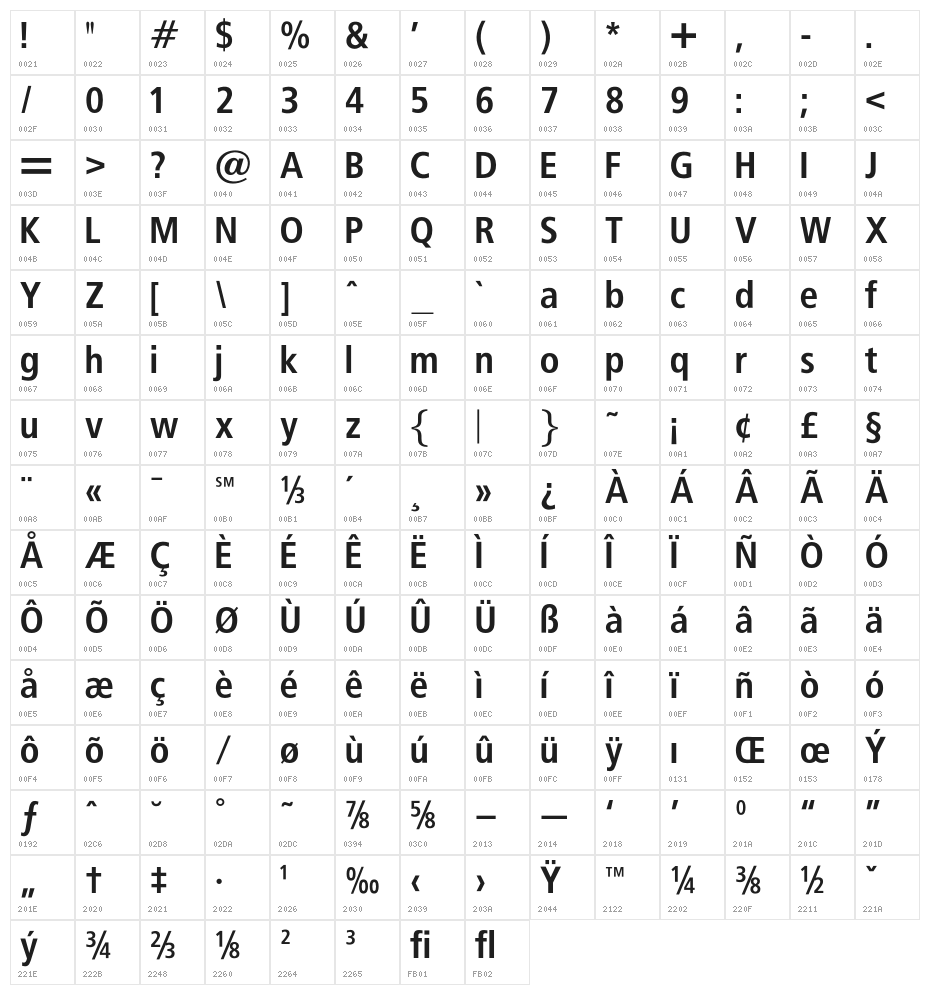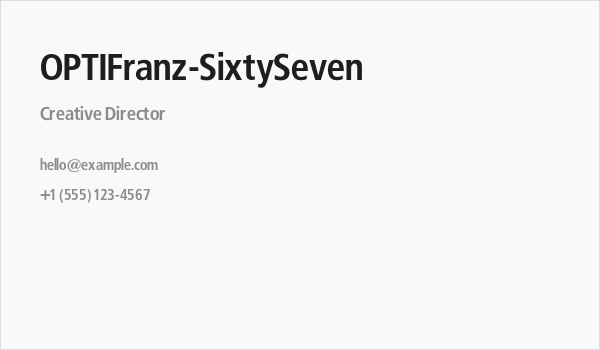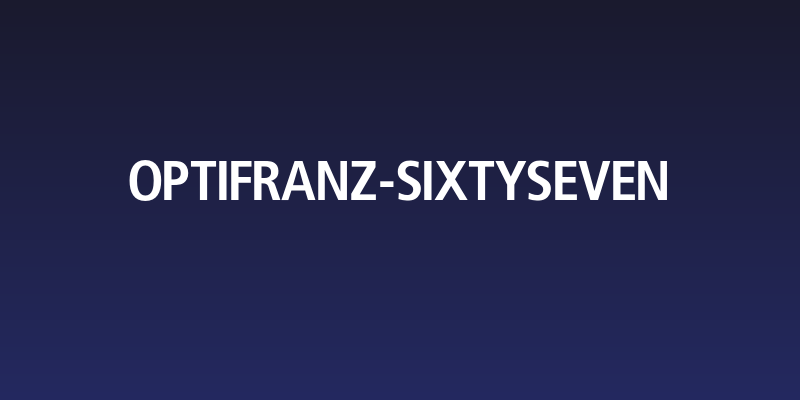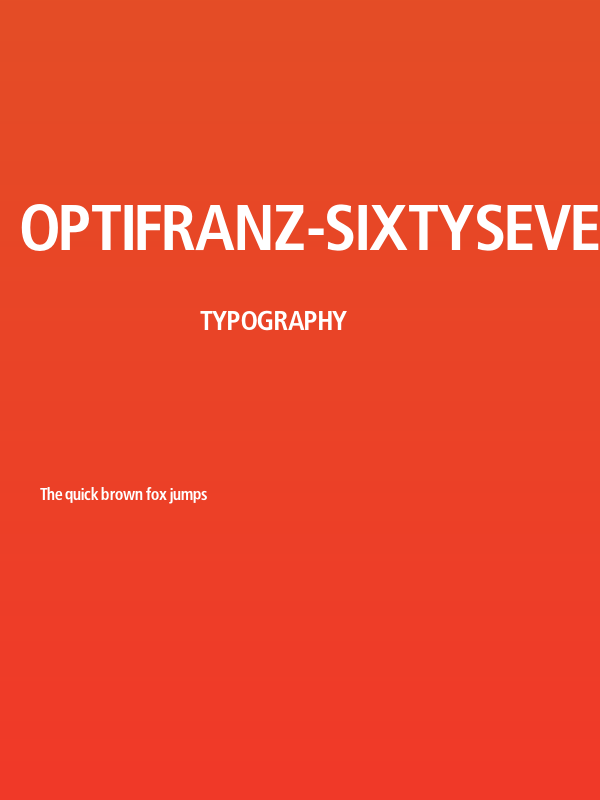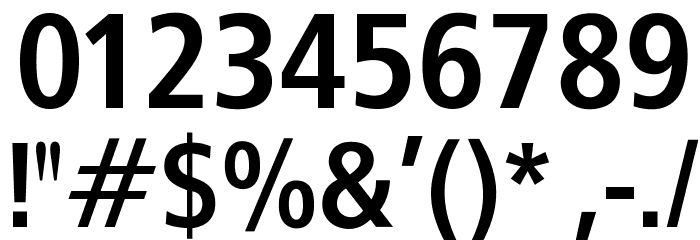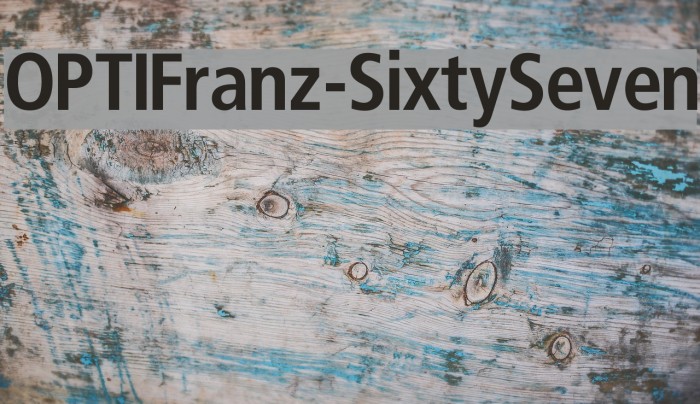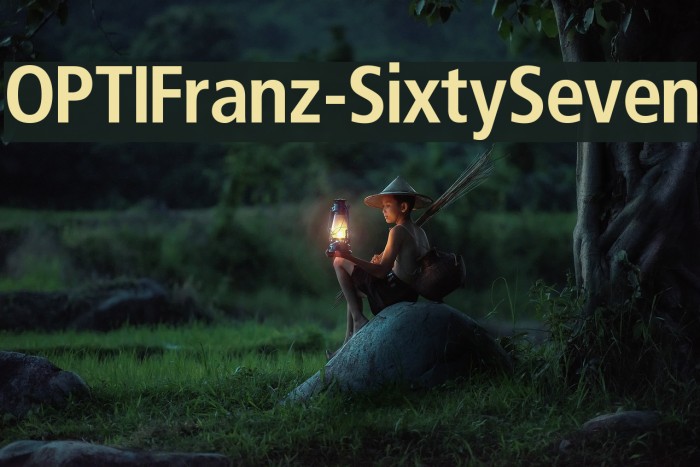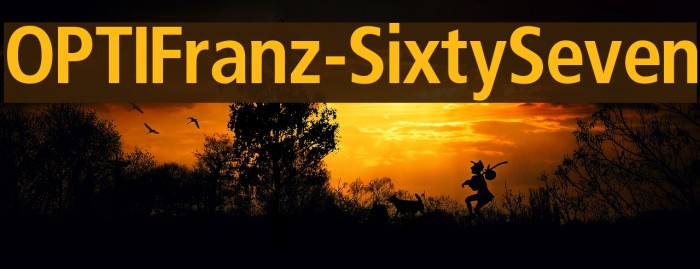
OPTIFranz-SixtySeven Font
OPTIFranz-SixtySeven Description
This font features a clean and modern sans-serif design, characterized by its bold and uniform stroke width. The characters are well-defined with a slightly condensed appearance, making it suitable for both digital and print media. The uppercase letters are tall and commanding, while the lowercase letters maintain a consistent height, providing a balanced and harmonious look. The numerals are clear and easily distinguishable, ensuring readability. The special characters are designed to complement the overall style, maintaining the font's cohesive appearance.
| Use Case | Headlines, Logos, Digital interfaces |
| Proposed Projects | Ideal for branding, advertising, headlines, and digital interfaces where clarity and modernity are essential. |